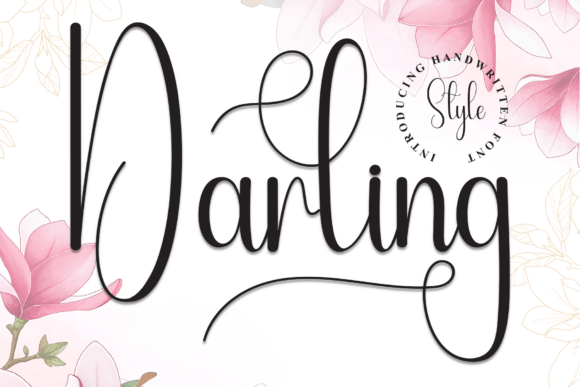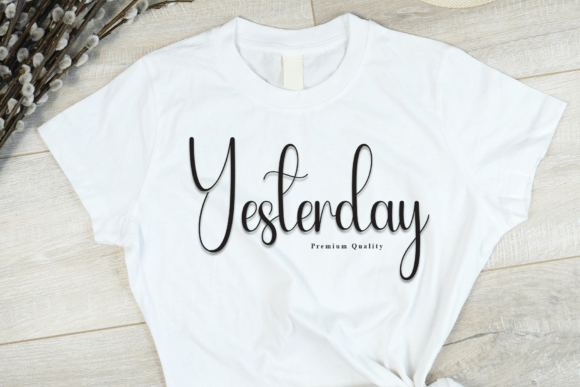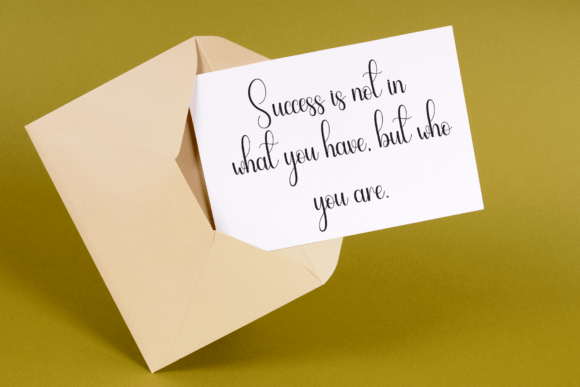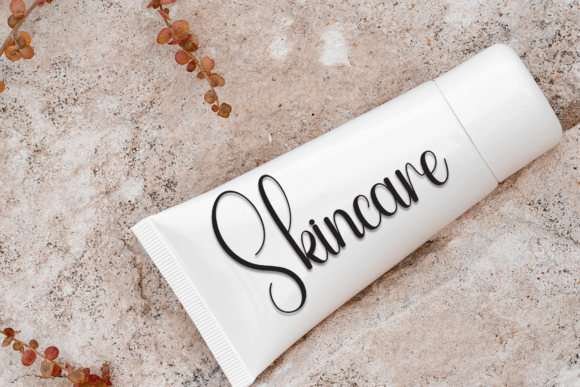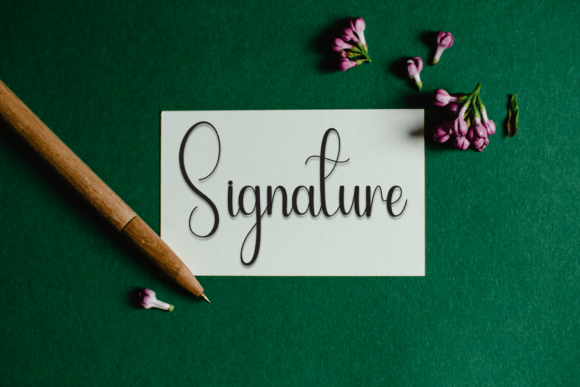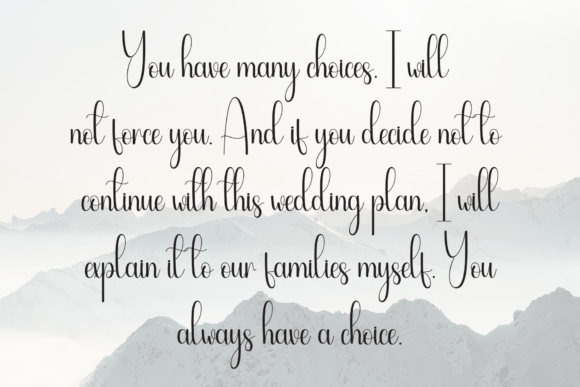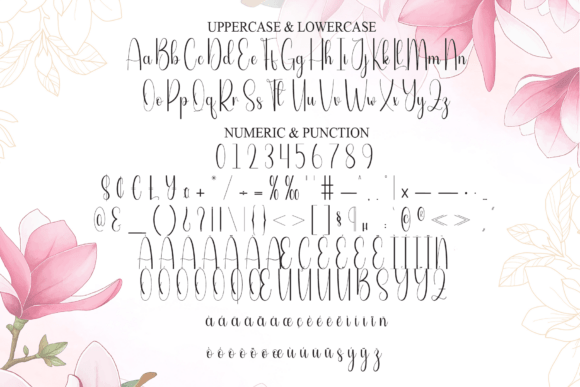
The Perfect Script for Your Masterpiece: Darling Font
Have you ever stared at a blank page, trying to find the perfect words to express your creativity? Maybe you’re designing a wedding invitation, crafting a logo for your new business, or simply looking for the perfect font to add a personal touch to your social media posts. Whatever the project, the right font can make all the difference. And that’s where Darling Font comes in – a stylish handwritten script font that brings a modern elegance and playful touch to any design.
Darling Font is perfect for adding warmth, sophistication, and creativity to your projects. Its fluid strokes and charming curves make it ideal for logos, packaging, and invitations. As a designer, you know how valuable it is to have a versatile font that can elevate your work and make it stand out. With Darling Font, you’ll have the perfect tool to bring your creative vision to life.
Darling Font Key Features
- Unique Characteristics: Whimsical, elegant script with flowing connections and subtle flair, ideal for invitations, wedding stationery, and other creative projects.
Darling Font Review
Overall, I think the Darling Font is a charming addition to any design project. ✨ The elegant script style is perfect for adding a touch of sophistication to invitations, greeting cards, or even marketing materials.
Here are some of the things that I think work well:
- ✨ Unique, hand-written style that adds a personal touch
- ✨ Elegant, flowing lines that make it perfect for formal or semi-formal designs
- ✨ Supports a wide range of languages, making it versatile and practical
However, there are a few limitations that I think are worth mentioning:
- ⚠️ Limited font sizes – it may not be the best choice for large or small text
- ⚠️ Some characters may not display correctly in certain contexts (e.g. bold or italic)
- ⚠️ Not as legible at very small sizes, which may affect readability
Overall, I think the Darling Font is a great choice for designers who want to add a touch of elegance to their projects. While it has some limitations, it’s definitely worth considering for the right type of design.
Getting the Most Out of Darling Font
Here are some tips for getting the most out of the Darling Font:
1. Use the font in combination with other decorative fonts to create a unique look.
2. Experiment with different font sizes and styles to create visual interest.
3. Use the font in headings and subheadings to create a clear hierarchy of text.
The Darling Font is commonly used in:
1. Branding and marketing materials, such as logos and business cards.
2. Social media graphics and posts.
3. Wedding invitations and station